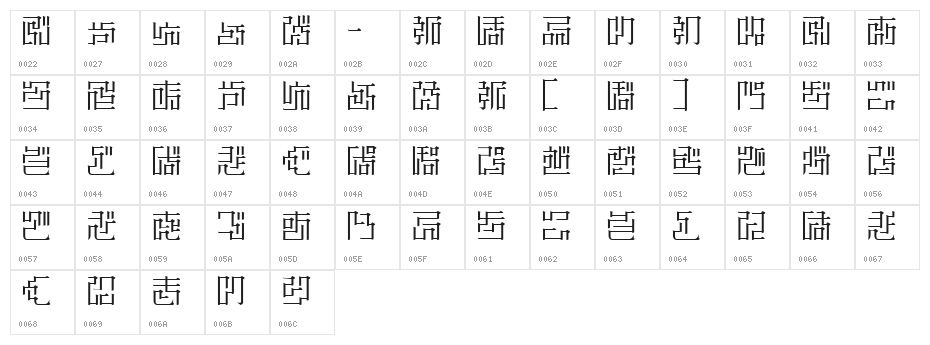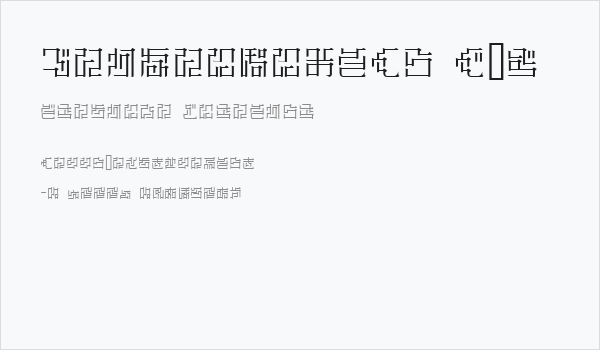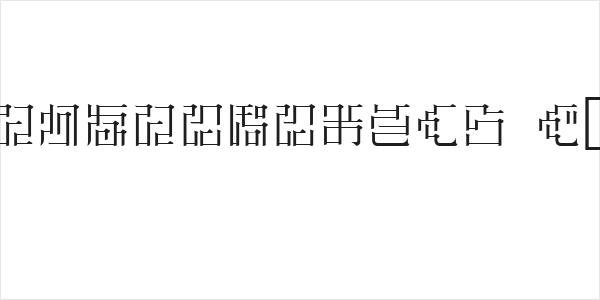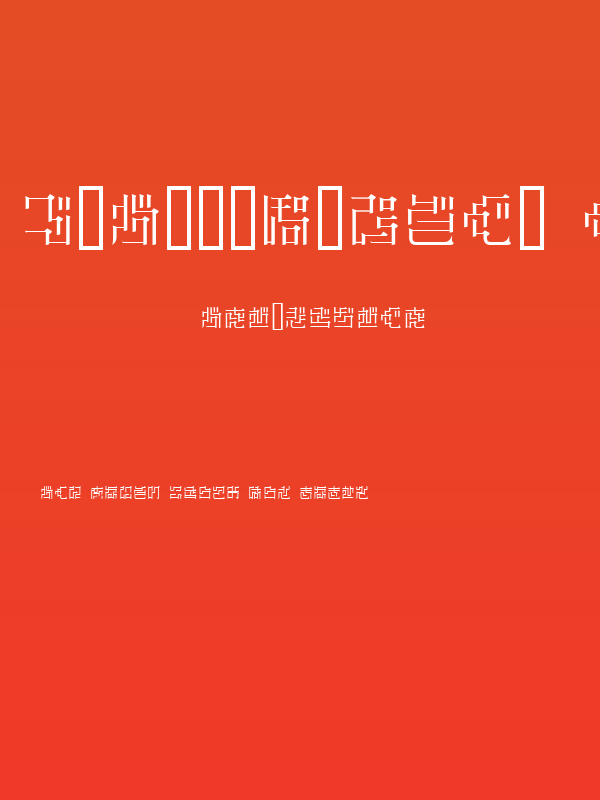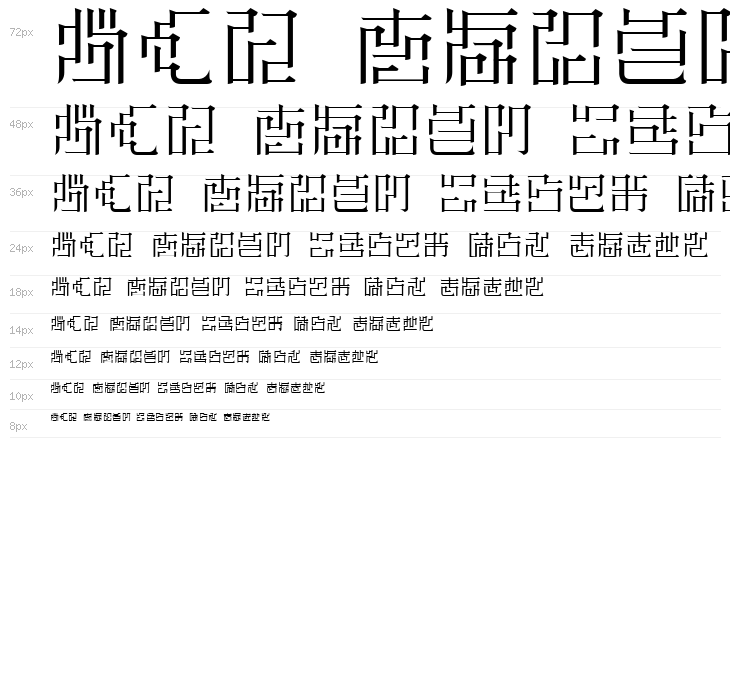
ZetueiMincho HIR Font
ZetueiMincho HIR Description
This font features a unique blend of traditional and modern elements, characterized by its bold, geometric shapes and distinct, angular serifs. The characters are designed with a high contrast between thick and thin strokes, giving it a dramatic and eye-catching appearance. The overall style is reminiscent of classic serif fonts but with a contemporary twist, making it suitable for both traditional and modern design projects. The spacing between characters is normal, allowing for readability while maintaining its striking visual impact.